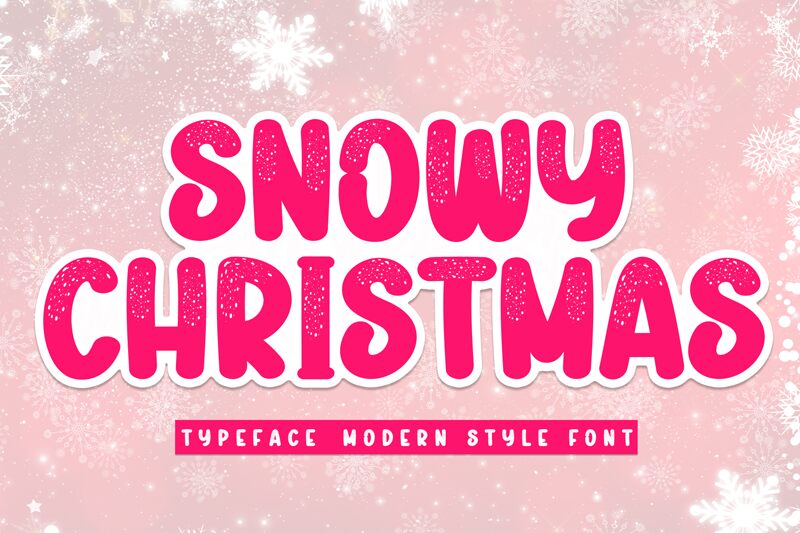
Snowy Christmas
Snowy Christmas font is designed by Scratchones in a nostalgic fashion that immediately evokes holiday feelings. It is a free brush font whose letters showcase irregular edges and a festival of unique imperfections. Collectively they are reminiscent of sugar patches on gingerbread or snow caps on houses and trees—delightful thoughts closely tied to Christmas.
Use Snowy Christmas in your greetings cards, posters, gift wrapping paper, t-shirt graphics, warm cozy coffee packaging design, or storefront chalkboard signs handwriting. Each letter will look just as magical in your restaurant menu handbook and headings for magazine articles about travelling to winter destinations. It’s also an interesting choice for designing children’s room decorations or invitations for birthday parties in the colder months.